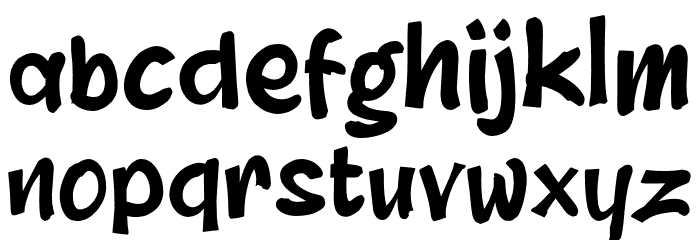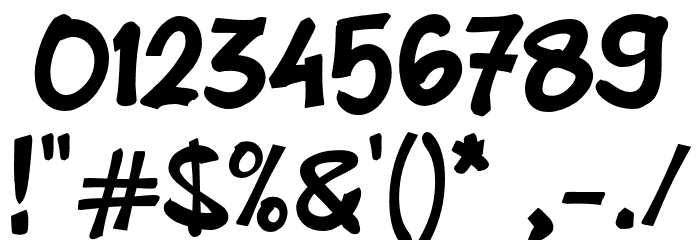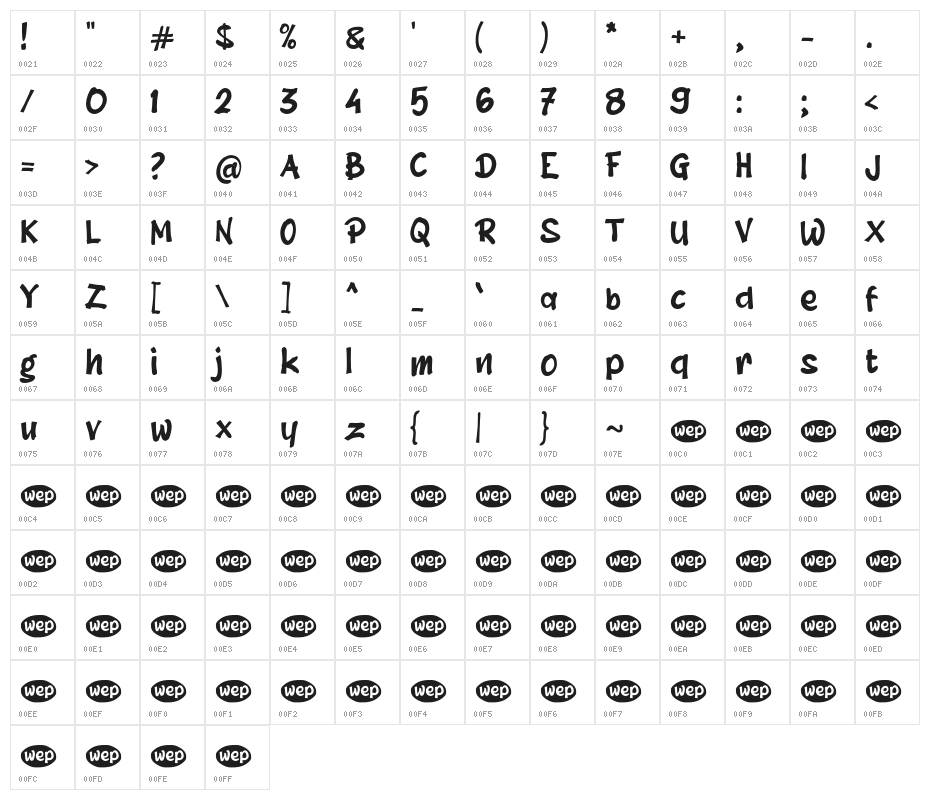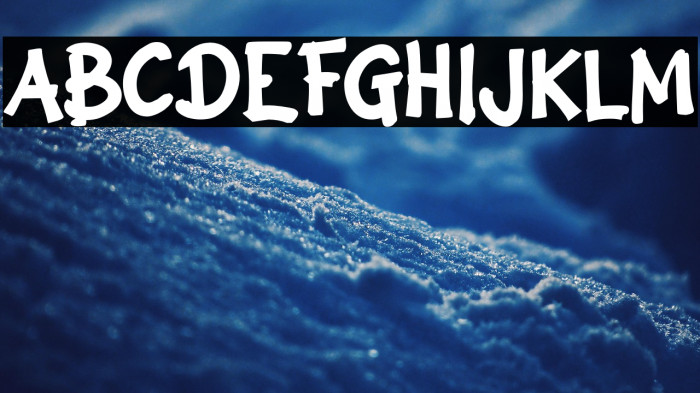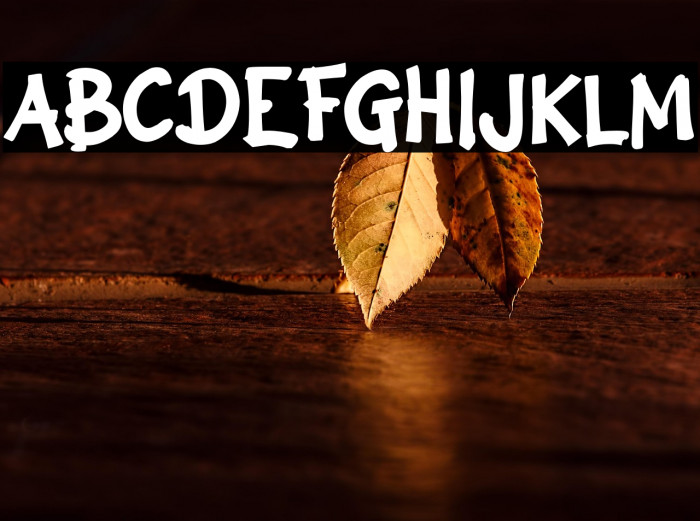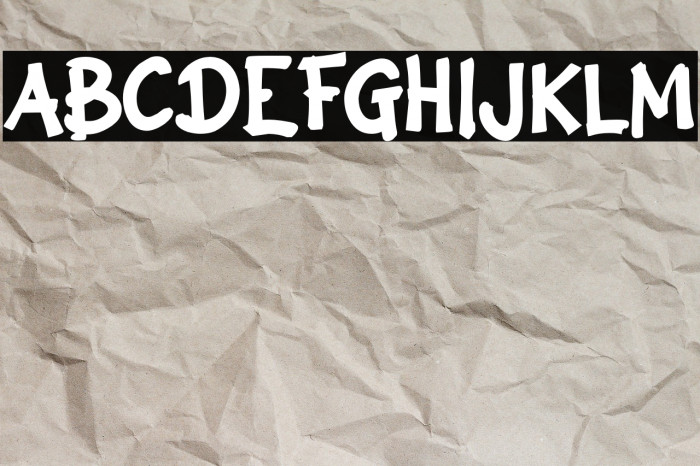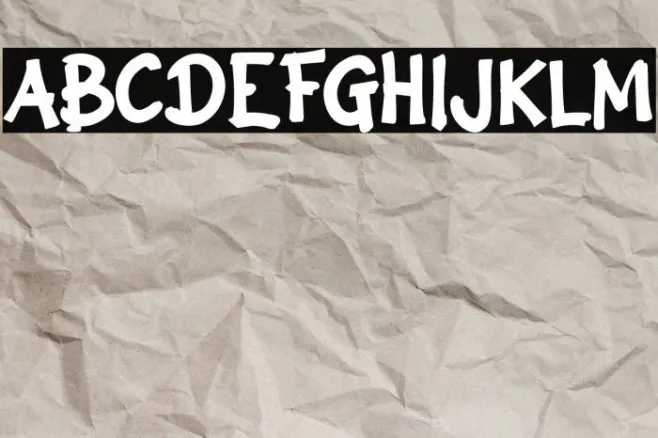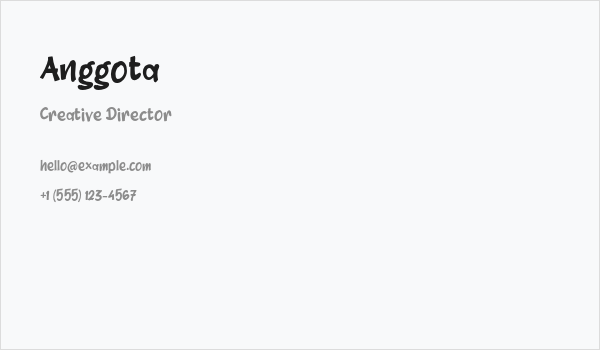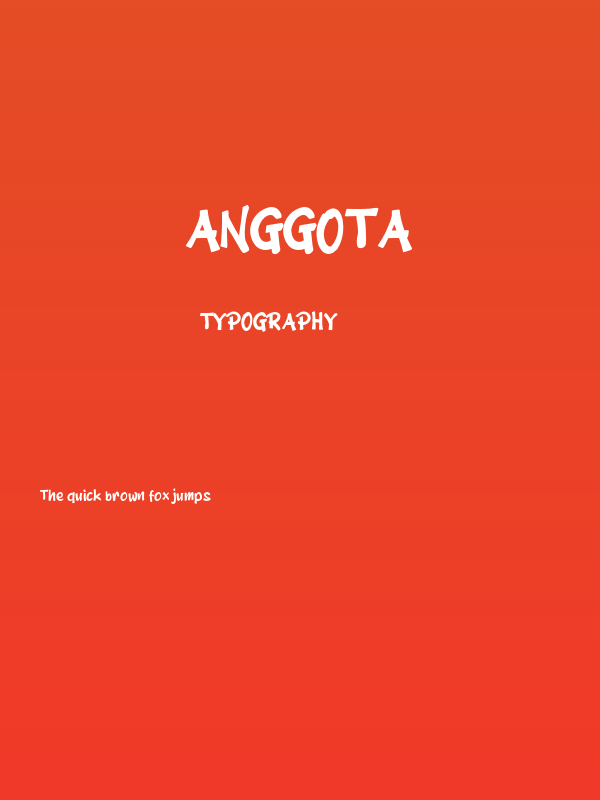
Anggota Font
This font features a playful and bold handwritten style, characterized by its thick strokes and slightly irregular shapes. The letters have a casual, informal appearance, with rounded edges and a dynamic flow that suggests movement and energy. The uppercase and lowercase letters maintain a consistent style, while the numbers and special characters complement the overall look. This font is ideal for projects that require a fun and approachable aesthetic, making it suitable for children's books, playful branding, or creative advertising campaigns.
A bold, playful handwritten font with thick strokes and dynamic flow.
- Font: Anggota
- Proposed Projects: Ideal for children's books, playful branding, creative advertising, and informal invitations.
- Category: Handwritten
- Overall Style: Playful
- Use Case: Headlines, Logos, Informal Invitations